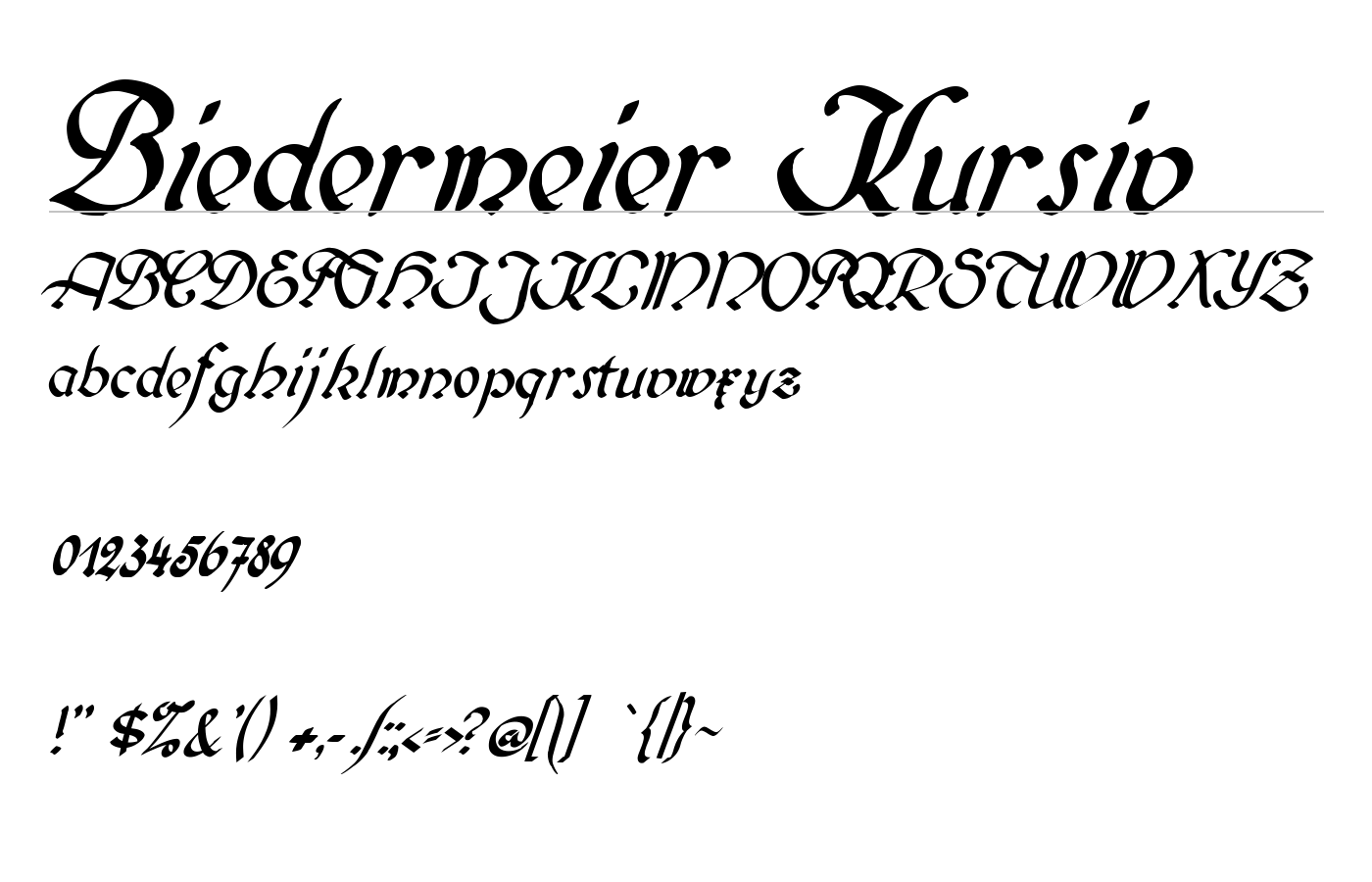
Biedermeier Kursiv is a decorative script font with strong calligraphic influences, featuring sharp, flowing strokes and a pronounced italic slant. Its elegant and vintage feel, combined with intricate letterforms and moderate contrast, makes it perfect for formal invitations, luxury branding, and artistic titles where a classic, refined aesthetic is desired. This font works best in display settings where its unique personality can shine without sacrificing readability.
Biedermeier Kursiv Font
About Biedermeier Kursiv Font
| Font family | Biedermeier Kursiv Font |
| Designer | Emmi Wernicke |